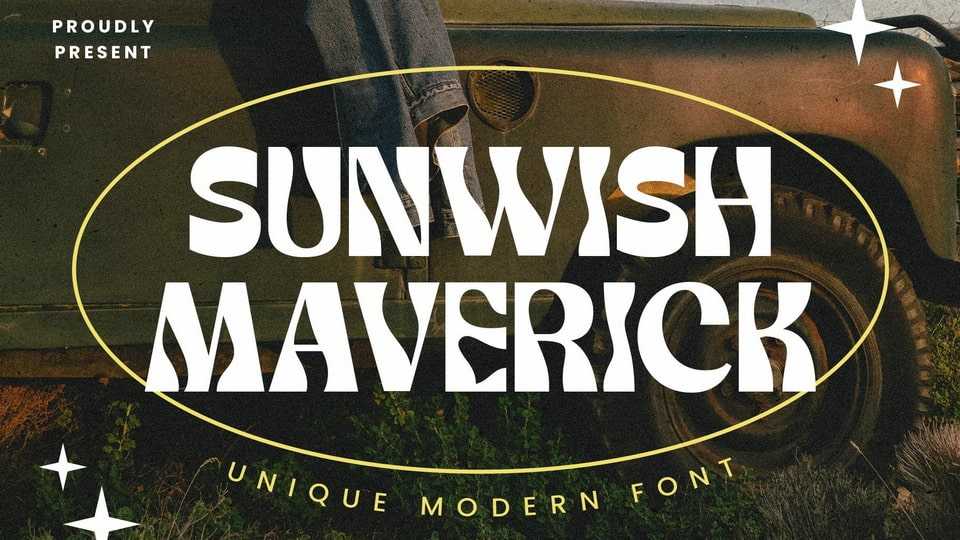
Download Sunwish Maverick font, an experimental psychedelic typeface with playful thick-thin curves that looks dynamic for your vintage design. Inspired by art nouveau typography, Sunwish Maverick can be applied for display, headline, groovy posters, retro flyers, decals, fashion, magazines, and many more.